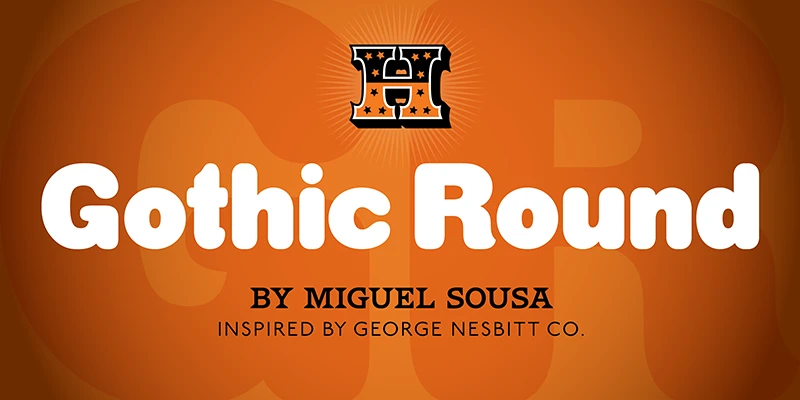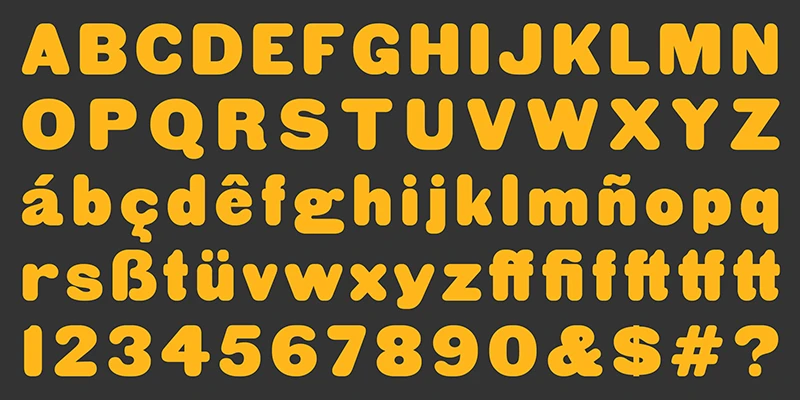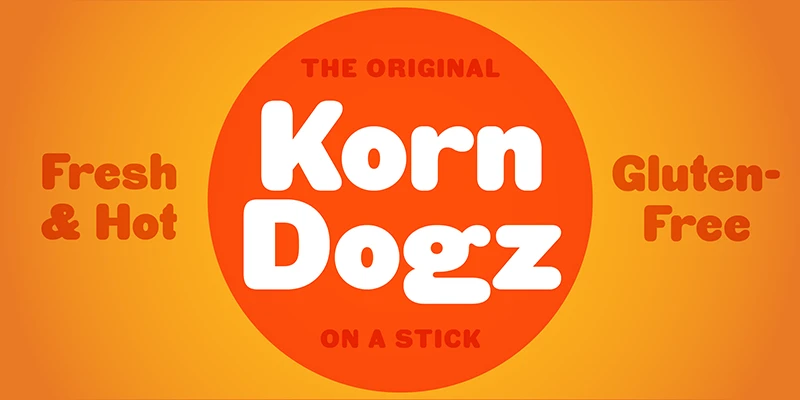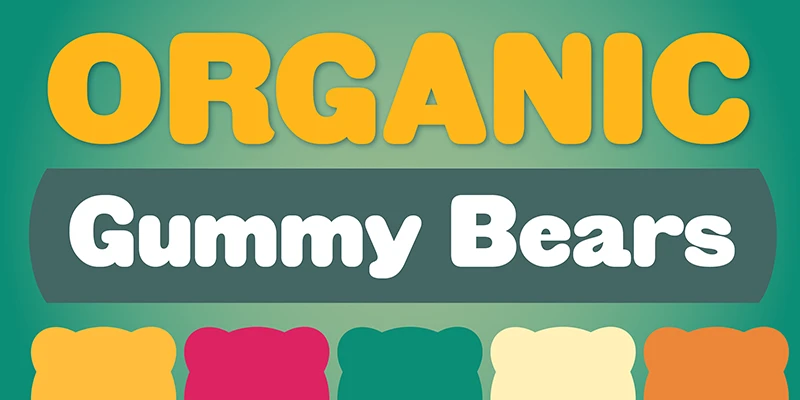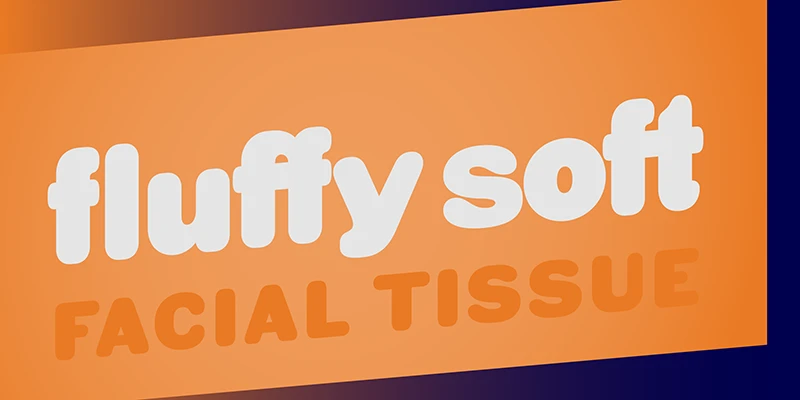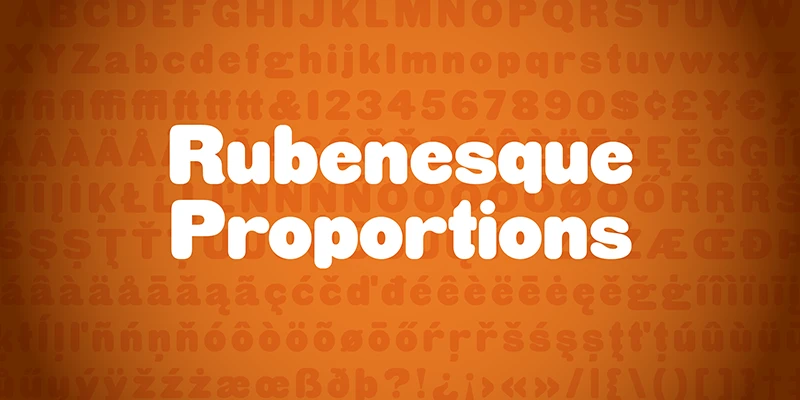
Gothic Round
From Hamilton Wood Type Collection
HWT Gothic Round is a bold, rounded sans digitized by Miguel Sousa. He took inspiration from eight different wood type sources dating back to 1838. Despite its tubular appearance, this typeface surprises with carefully crafted details. Distinct characteristics were emphasized or subdued, resulting in a fun hybrid. Notice the flat top of the ‘j,’ the dimple on ‘1,’ and the solution for minimizing descenders in the ‘g.’ Given its small counters, this face shines when used in larger sizes.
Designed by Miguel Sousa